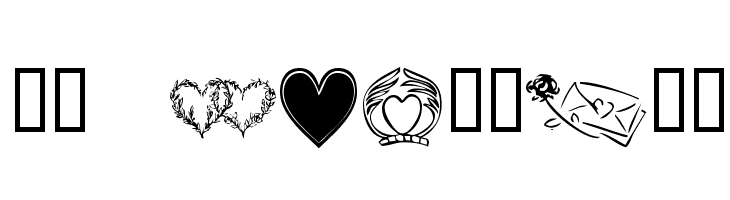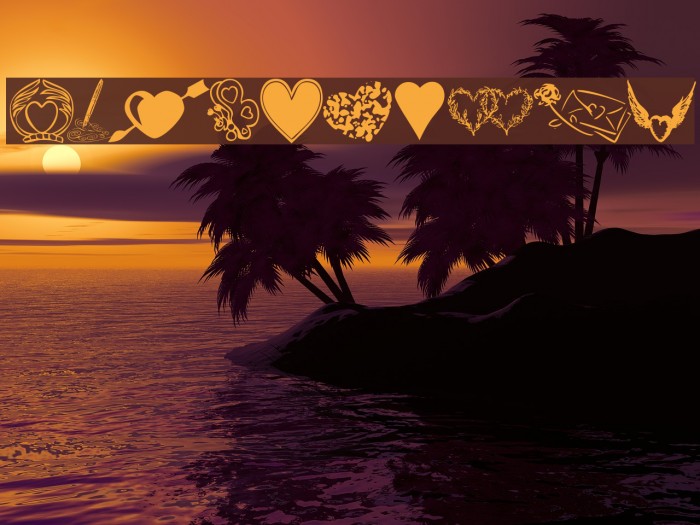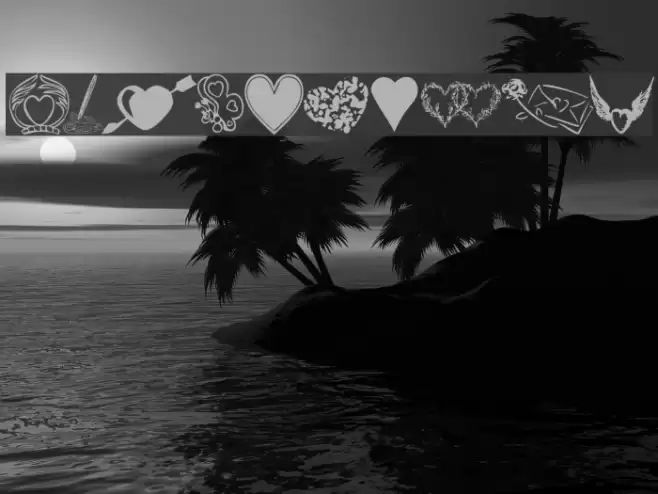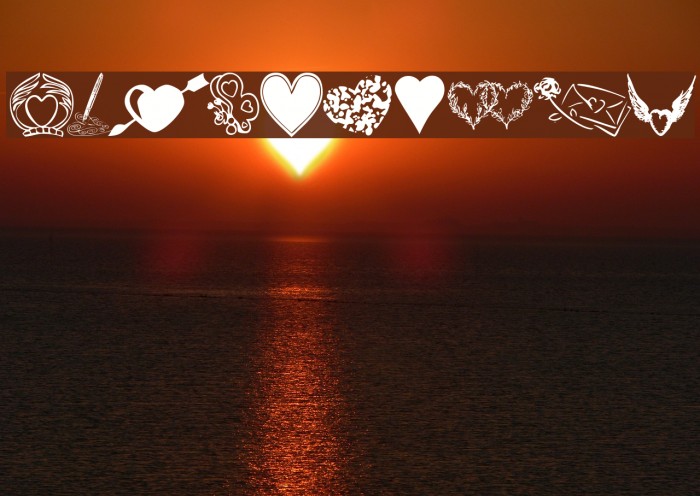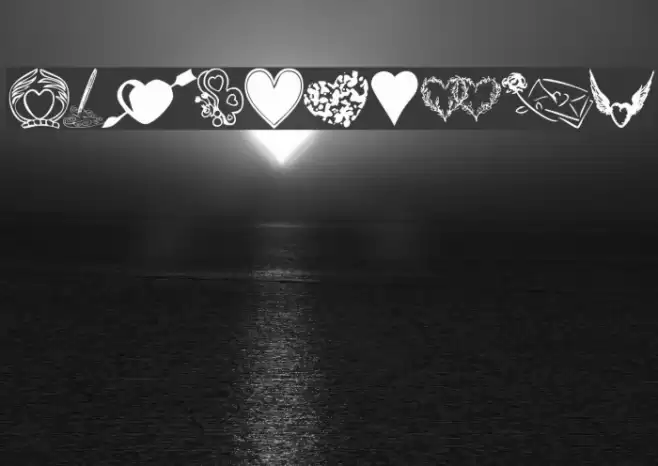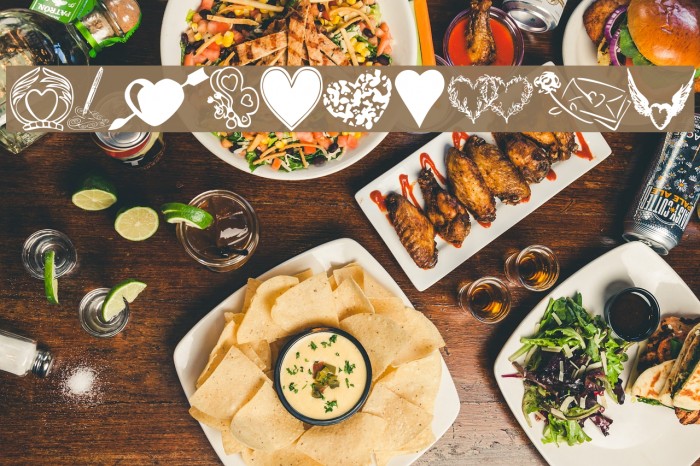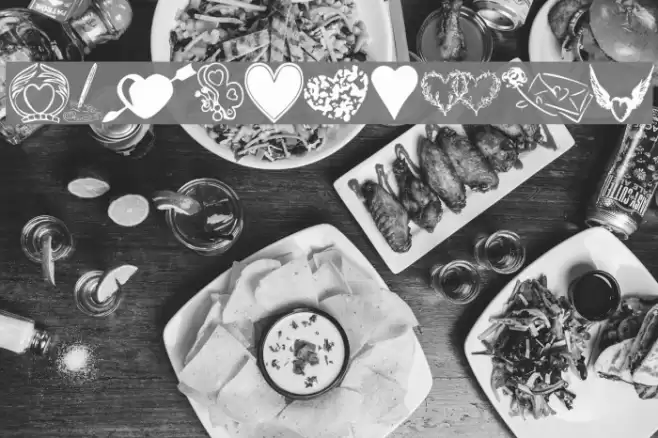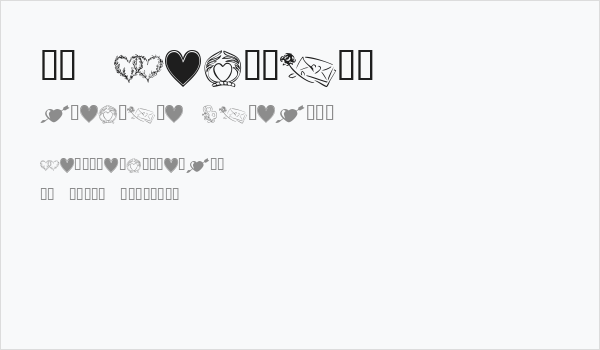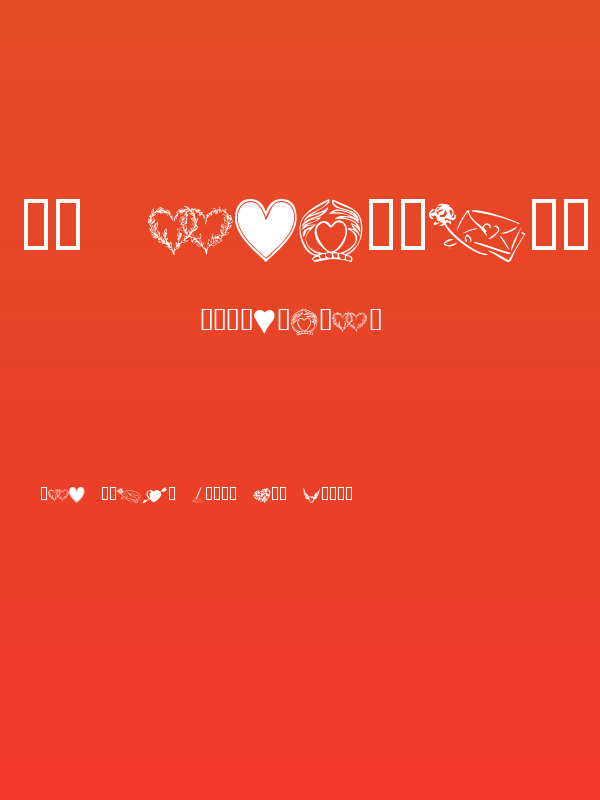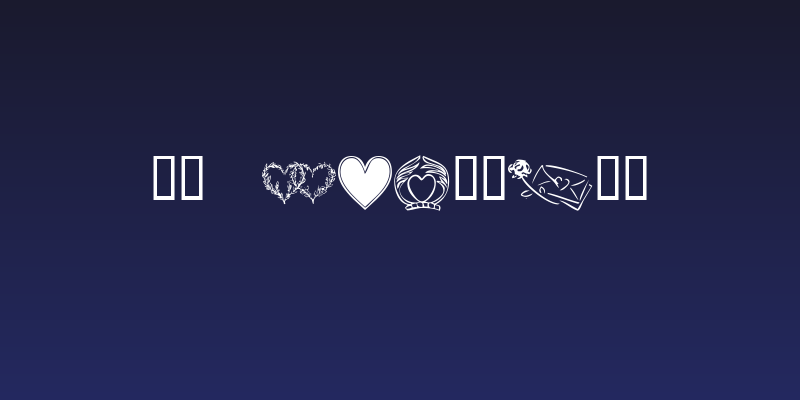
KR Heartily Font
KR Heartily Description
A decorative dingbat font featuring a variety of heart-themed illustrations, including hearts with arrows, floral hearts, heart-shaped locks, and love letters, all rendered in a playful and romantic style.
| Overall Style | Decorative, Romantic, Playful |
| Use Case | Decorative elements, Icons, Themed graphics |
| Proposed Projects | Valentine's Day cards, wedding invitations, romantic event decorations, scrapbooking, love-themed crafts. |